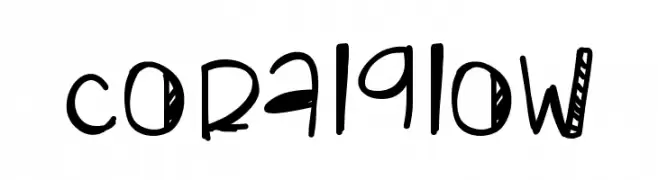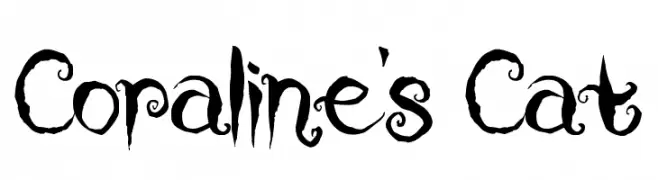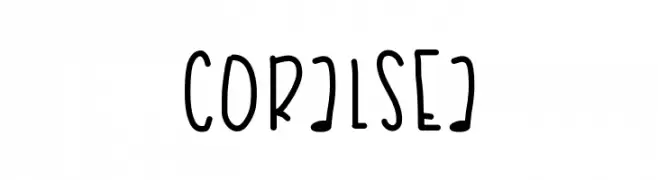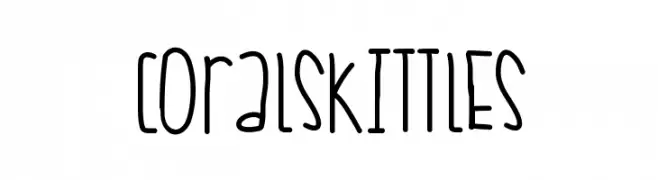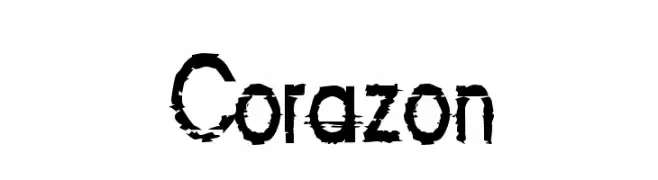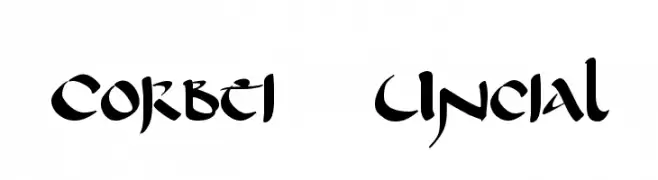
A playful, handwritten font with quirky and artistic letterforms.
A classic serif font with whimsical curves and pointed serifs.
A whimsical, eerie font with sharp strokes and playful curls.
A whimsical, eerie font with twisted, hand-drawn letterforms.
A whimsical and decorative font with imaginative, storybook-like characters.
A playful, hand-drawn font with tall, narrow characters and a casual style.
A playful, handwritten font with a casual and whimsical style.
A bold, distressed font with a grunge, textured style.
A bold, hand-painted style font with thick, textured strokes.